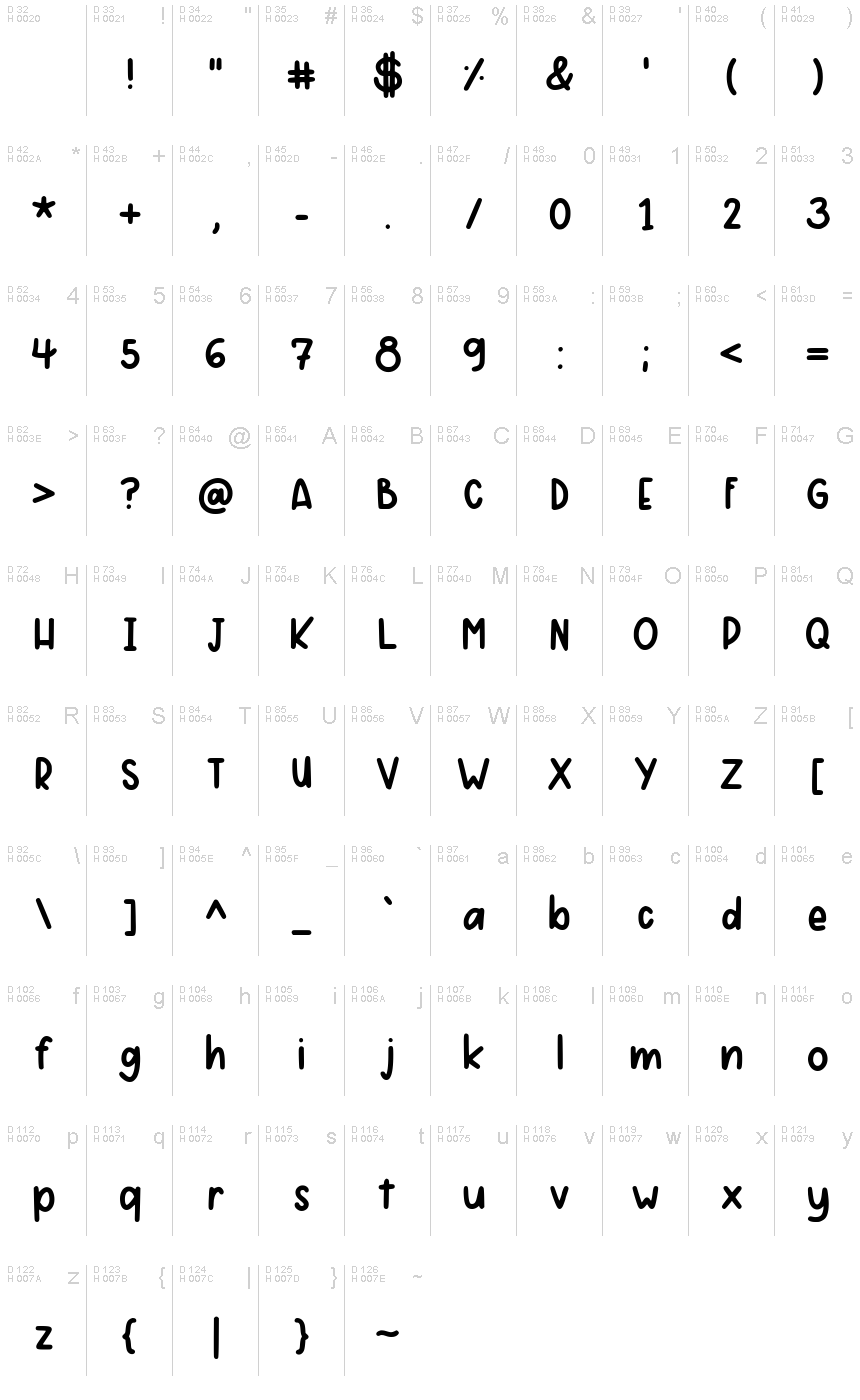
Basic Bitch _ Bold Regular
Basic Bitch Bold font from the Basic Bitch family, designed by Cabarquero, embodies a playful handwritten style that exudes personality and charm. With its bold strokes and lively curves, this font stands out, making it perfect for designs that demand attention.
Whether you're crafting eye-catching headlines or infusing a casual flair into branding projects, Basic Bitch Bold delivers both style and readability. Its friendly aesthetics make it ideal for personal projects or informal communications seeking a touch of creativity.